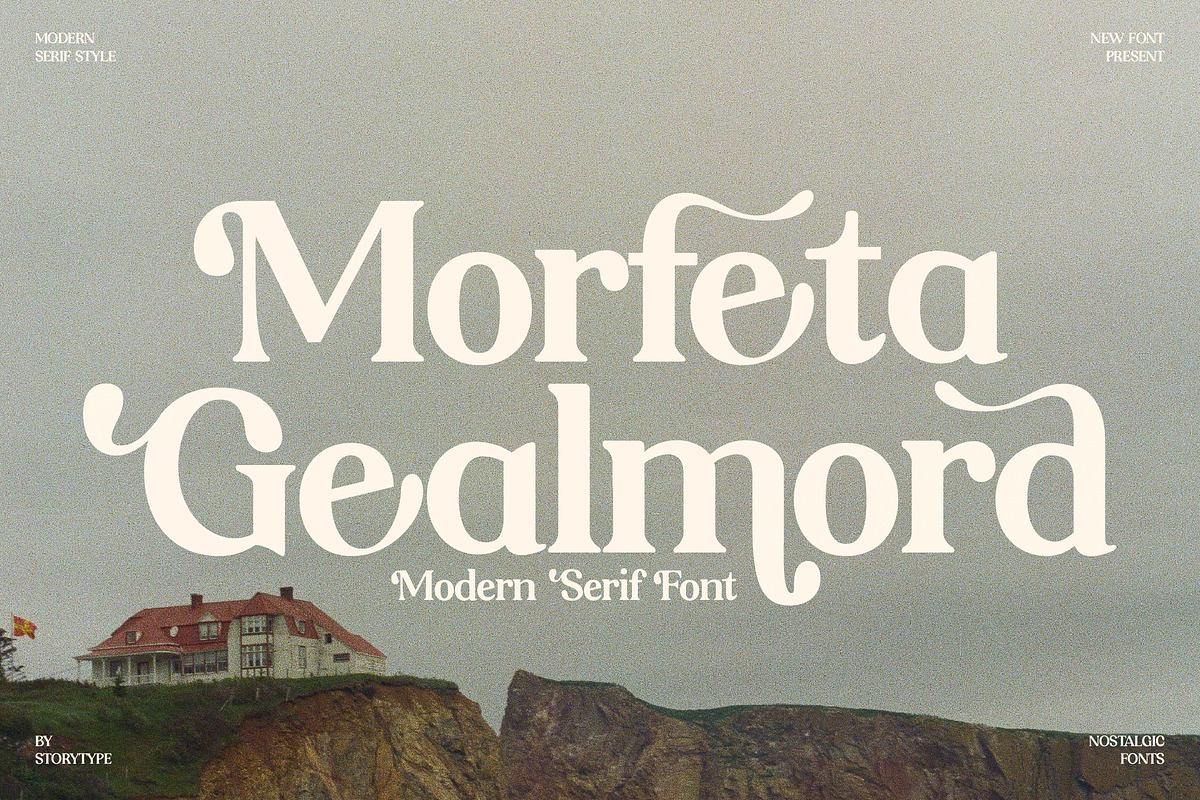
Morfeta Gealmord Modern Serif Font Free Download
Morfeta Gealmord Modern Serif Font Free Download is a stylish and refined typeface that blends classic serif elegance with a fresh, contemporary twist. Its high contrast strokes and distinctive letterforms make it a standout choice for luxury branding, editorial headlines, fashion campaigns, and upscale packaging.
Morfeta Gealmord Modern Serif Font Free Download offers a bold yet sophisticated look, perfect for designers who want to make a statement without losing that timeless feel. Whether you're crafting a high-end logo or a modern magazine layout, this font brings authority and beauty to the page. Download it now and elevate your designs with the confident charm of Morfeta Gealmord.